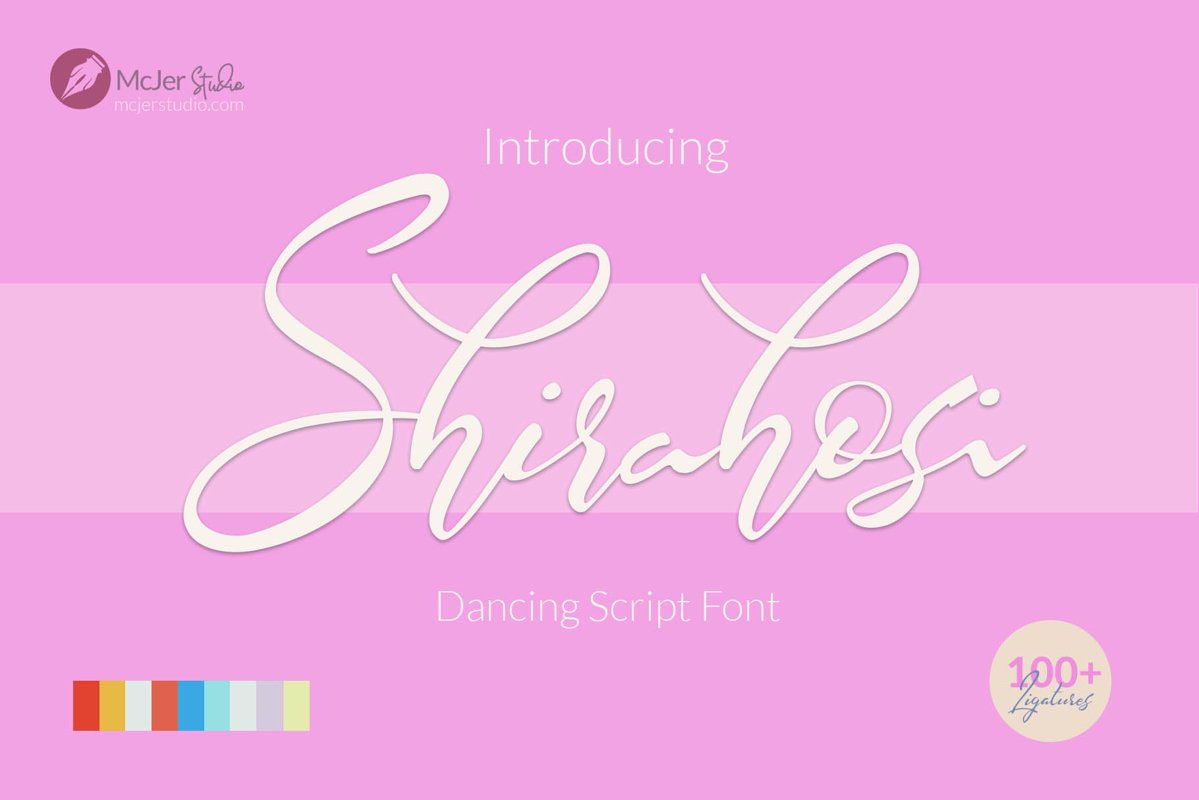
Shirahosi
Shirahosi is Dancing Script Font created by brush pen and hand drawing. The name Shirahosi was inspired by one of the beautiful mermaid figures in the One Piece Manga. I really love making this font for you all.This font is very special because I made it during the Covid-19 pandemic. This is the result of work from home, and I follow the health protocol on social distancing, I hope you all survive the virus.
Shirahosi Come with more Ligatures. include 100 more ligature in this Beautiful Font. I hope it really helps you in designing something like logotype, poster, branding and everything what you want. Shirahosi is very suitable for anything your design product, like as Logos, Wedding, Business Cards, Magazine, Gift Cards, Cloth, T-Shirt, Menu of Cafe and Restaurant, Brands, CD and DVD Cover, Wall, Frame, and typing in your PC. I think... This Font you can use and Apply for anything you want.
Opentype Feature:
• Standard Typeface
• Uppercase and Lowercase
• Lowercase Alternate Character in ss01 - ss06
• 100+ Ligature
• Punctuation, Symbols, Basic Latin and Extended